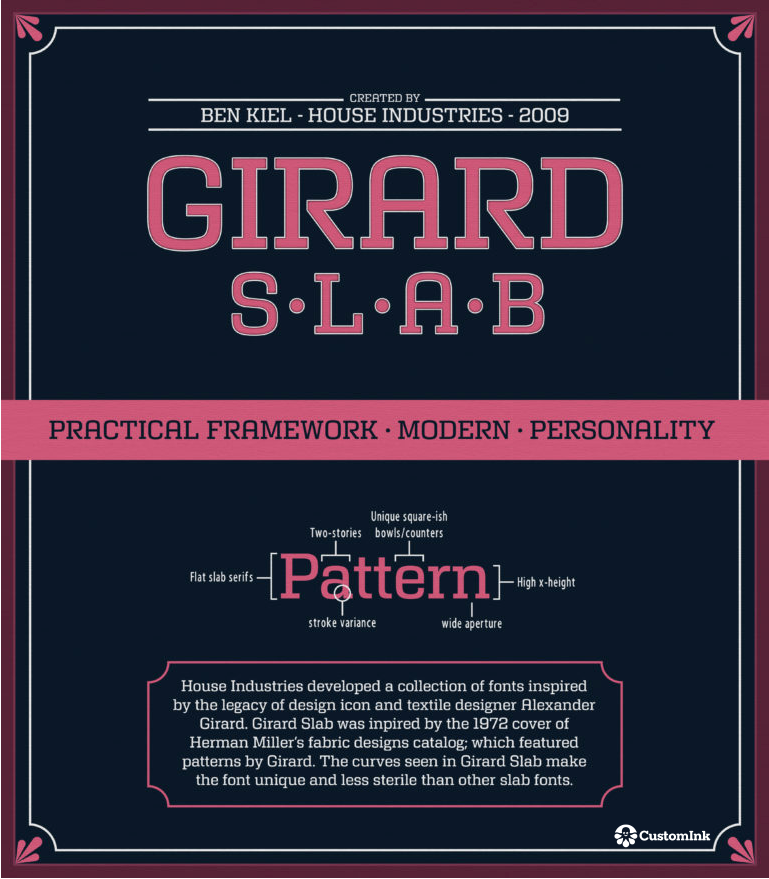
Font of the Week — Girard
Girard Slab, a House Industries font, was created by typographer Ben Kiel in 2009. It’s known for it’s practical framework and modern feel. Like House Industries says, “Girard adds a contemporary sophistication to text and display settings.”
Sophistication and contemporary style are exactly why CustomInk proudly features eight members of the Girard family in our Design Lab. From Girard Light to Girard Script, this font family rounds out our carefully curated font offering.